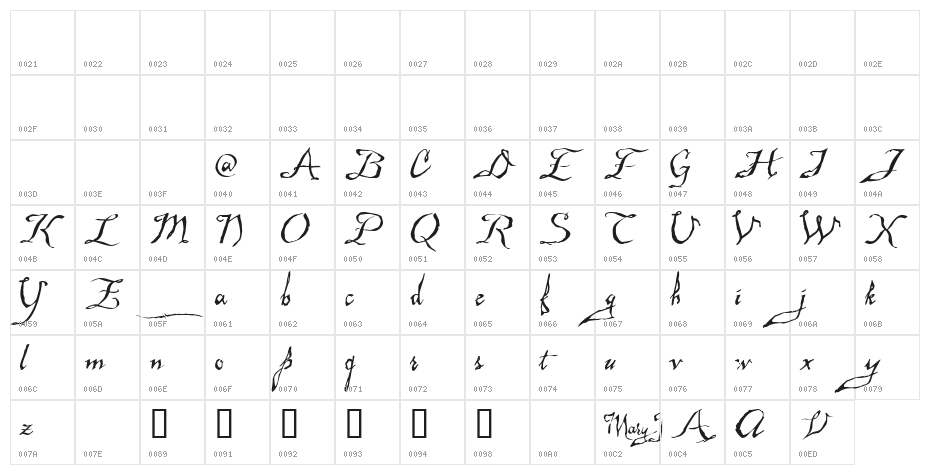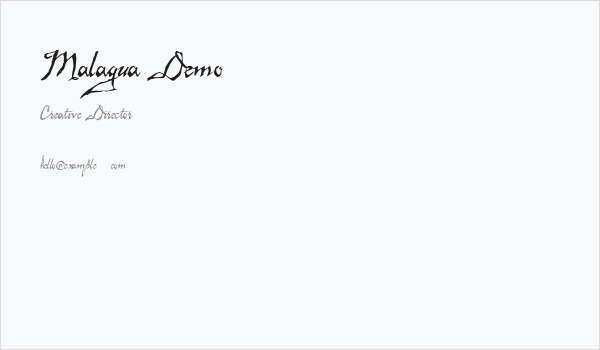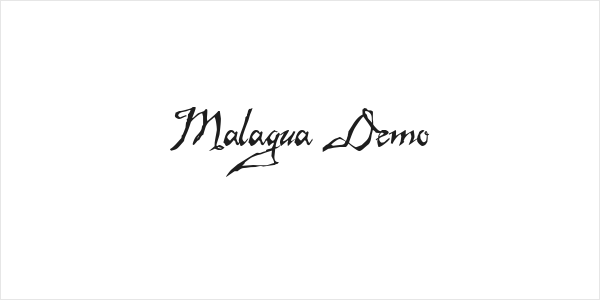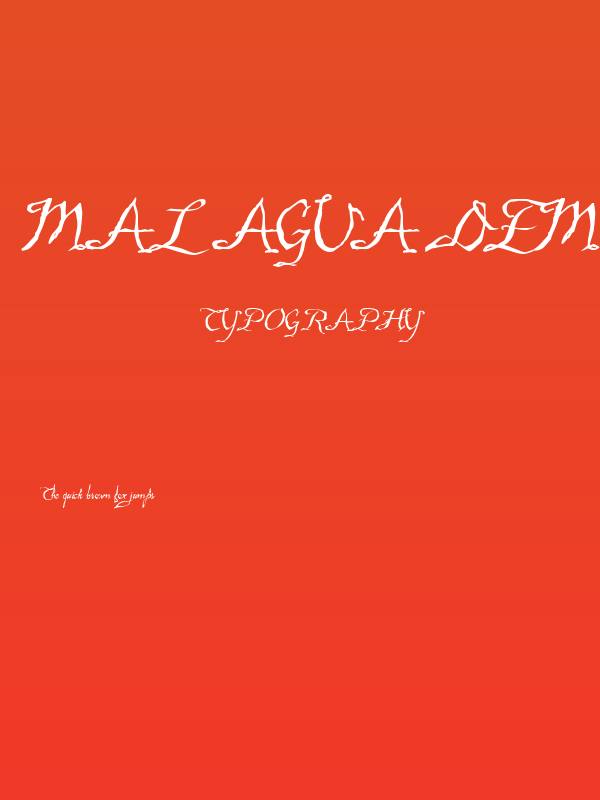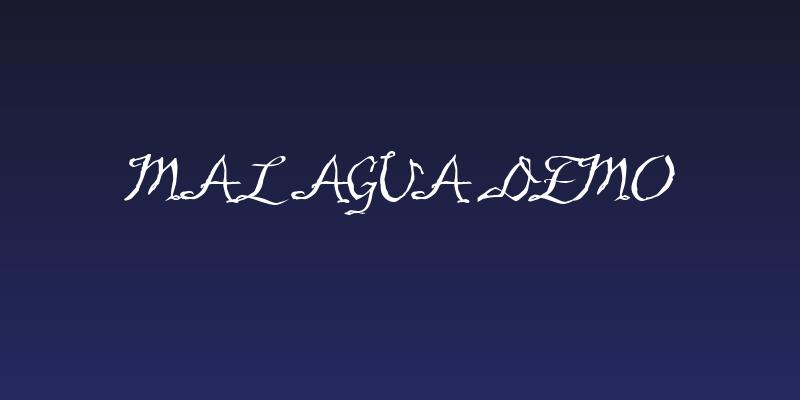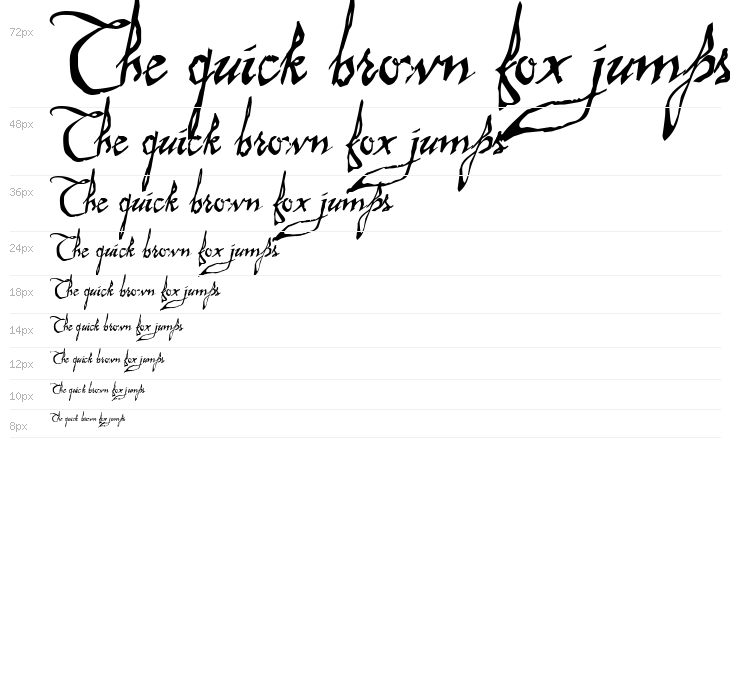
Malagua Demo Font
Malagua Demo Description
This font features an intricate and artistic script style, characterized by its flowing and interconnected letterforms. The uppercase letters exhibit a dramatic flair with elongated strokes and elegant curves, while the lowercase letters maintain a consistent fluidity, enhancing the overall aesthetic. The font's design is reminiscent of calligraphic handwriting, offering a sense of sophistication and elegance. Its unique style makes it suitable for creative and decorative purposes, where a touch of elegance and artistic expression is desired.
| Proposed Projects | Ideal for wedding invitations, artistic posters, branding for luxury products, and decorative headings. |